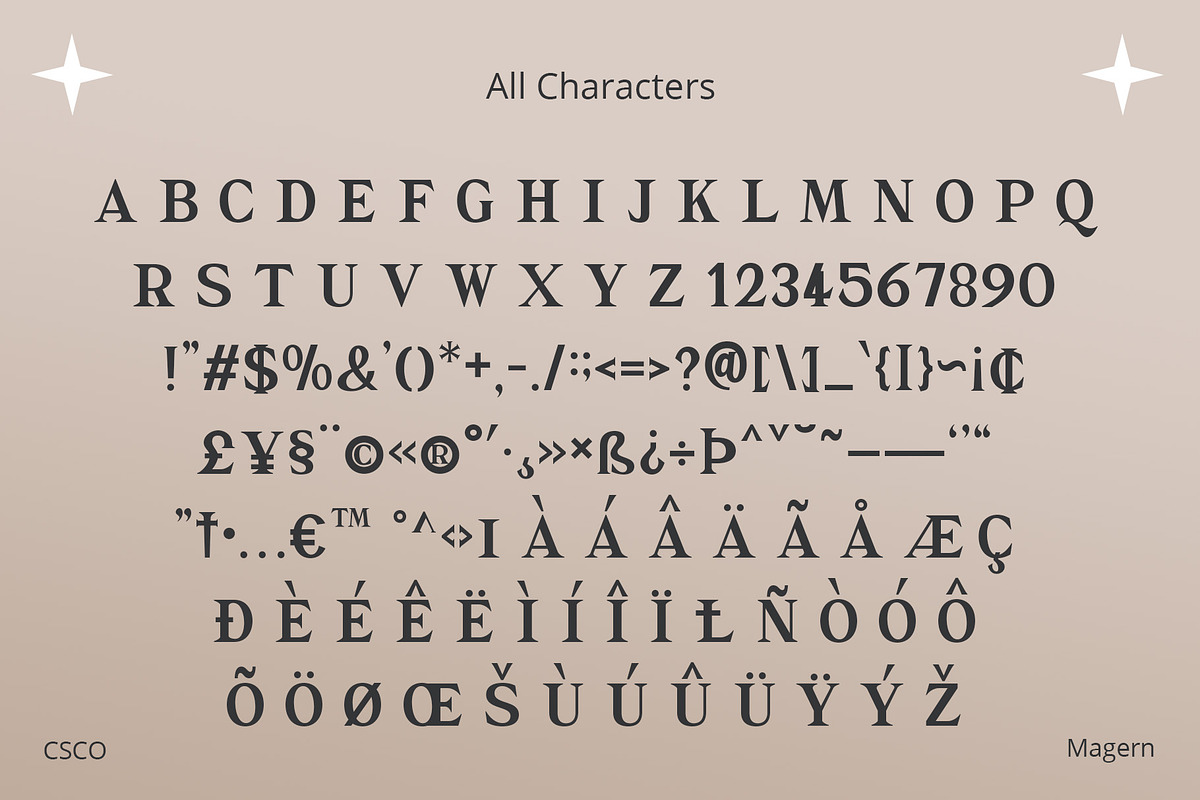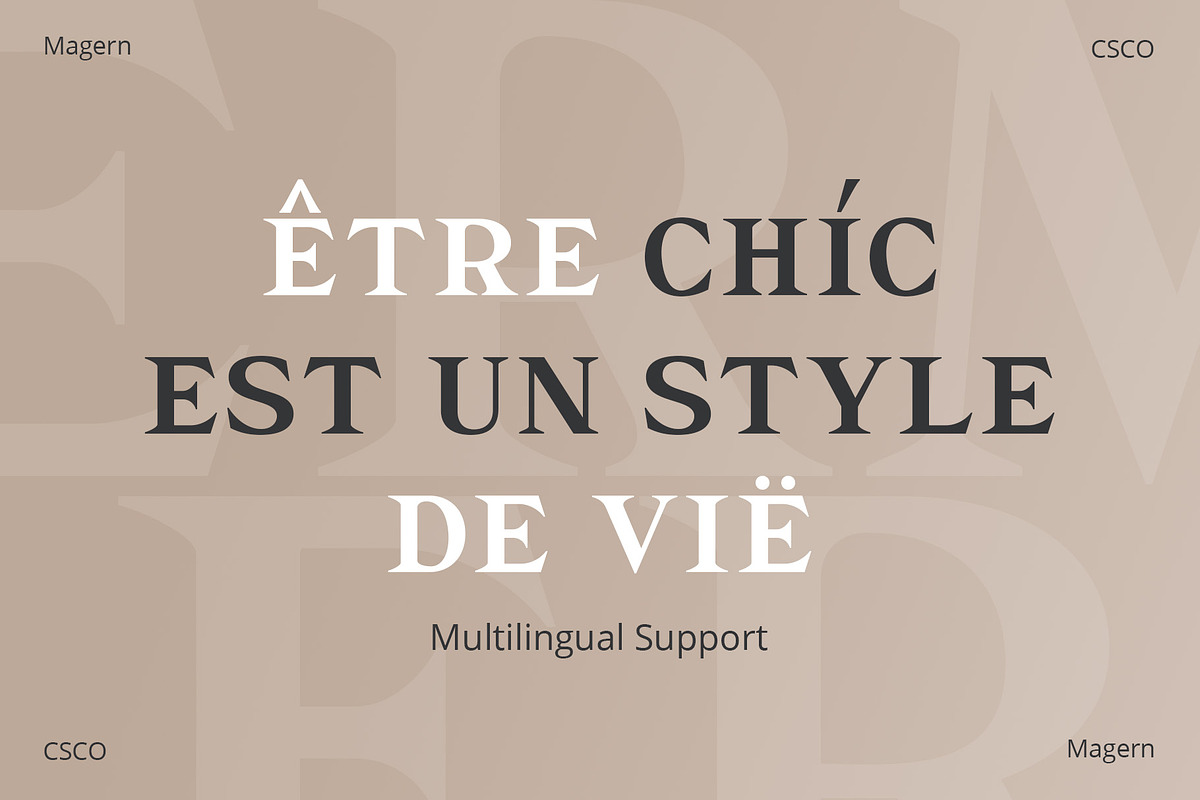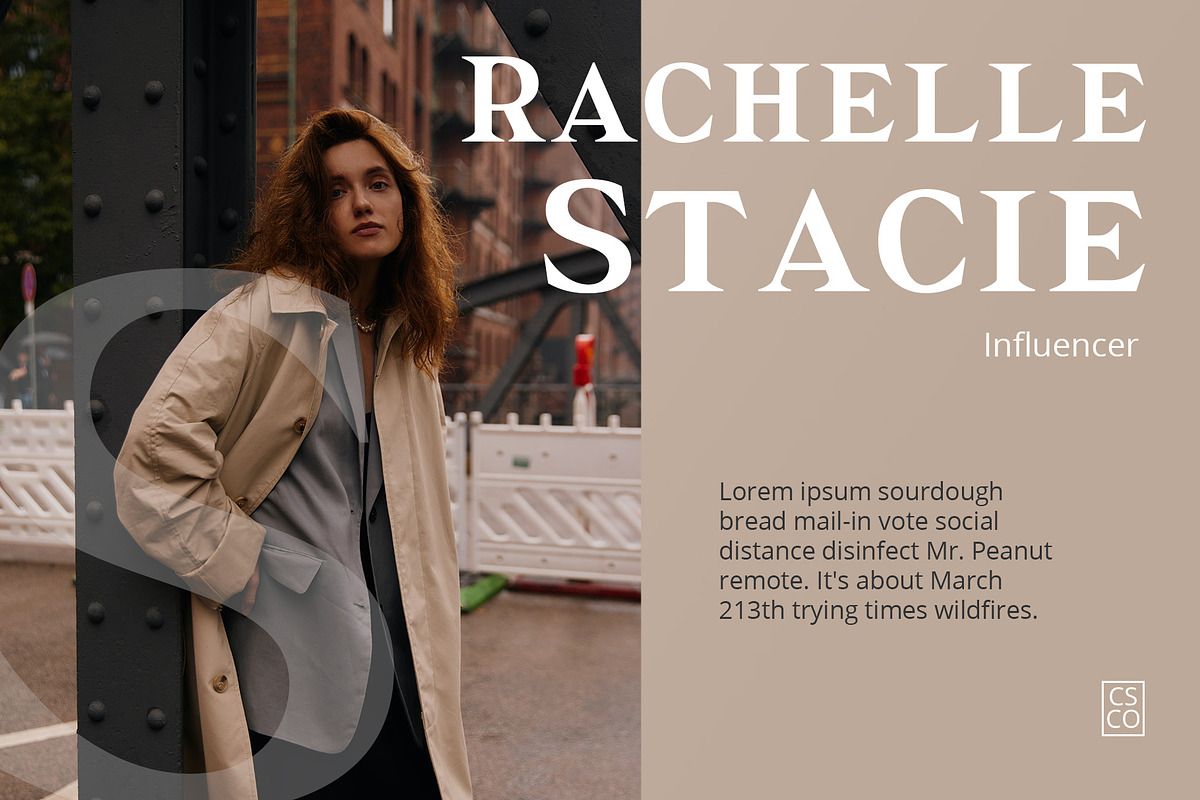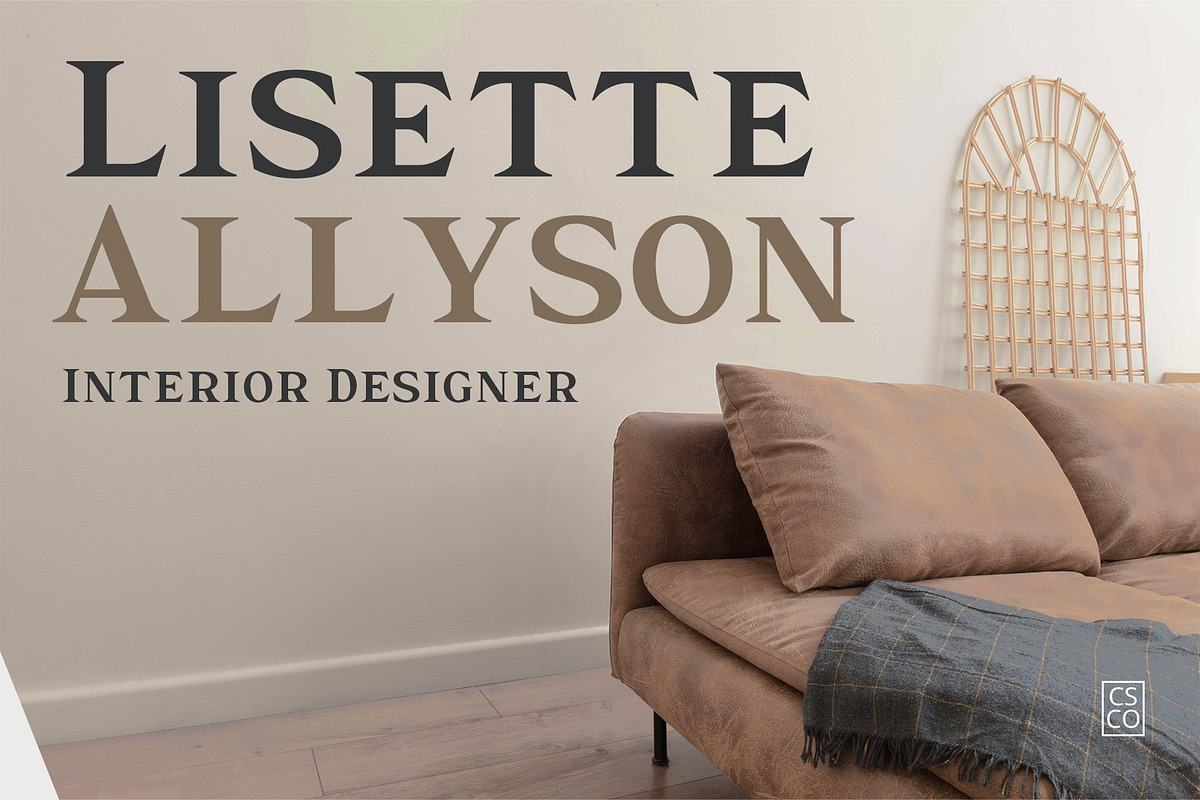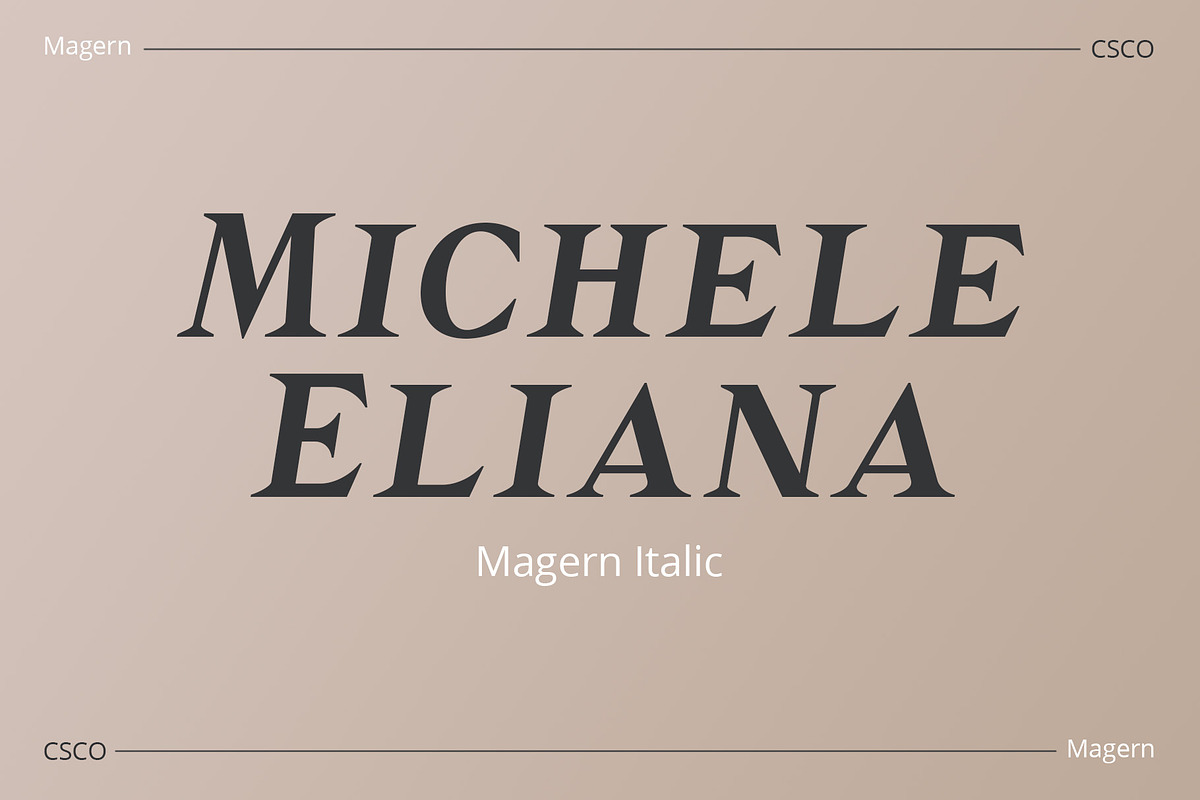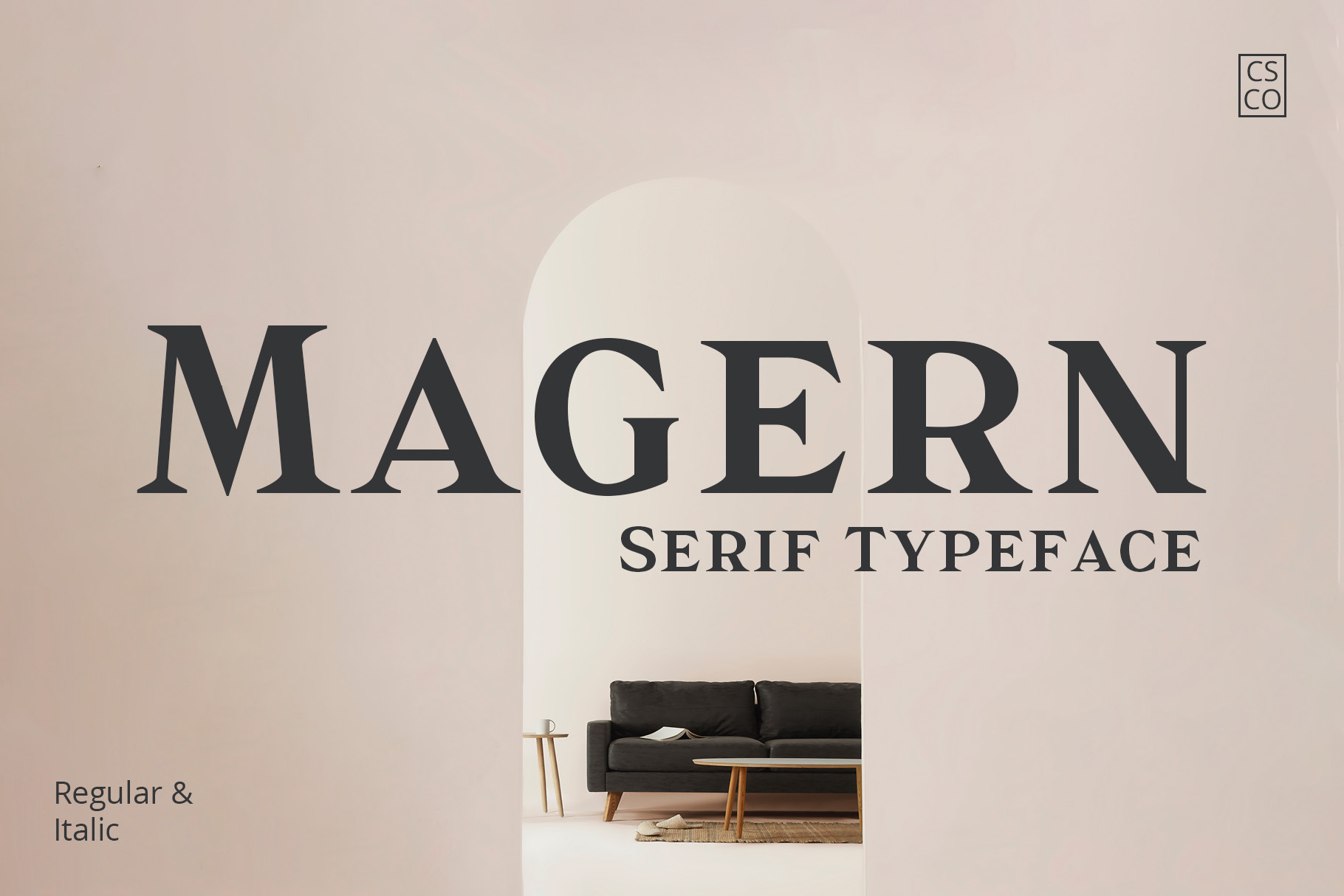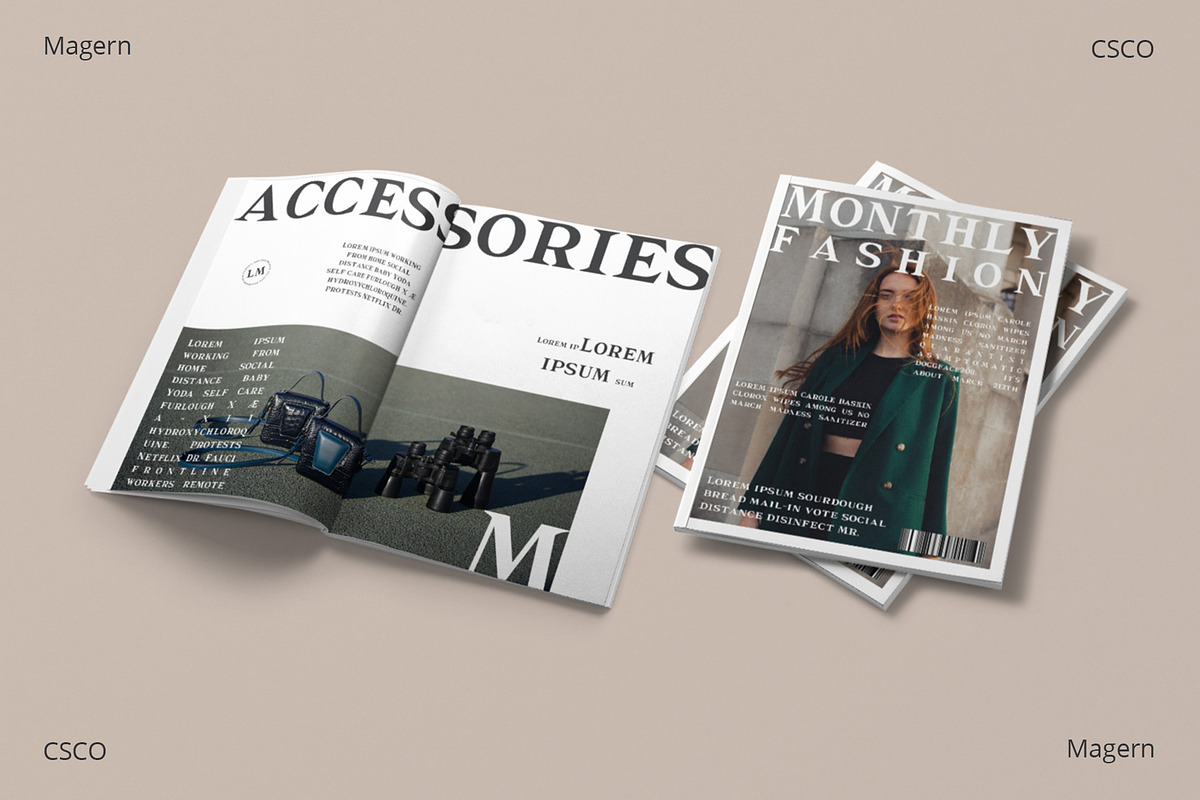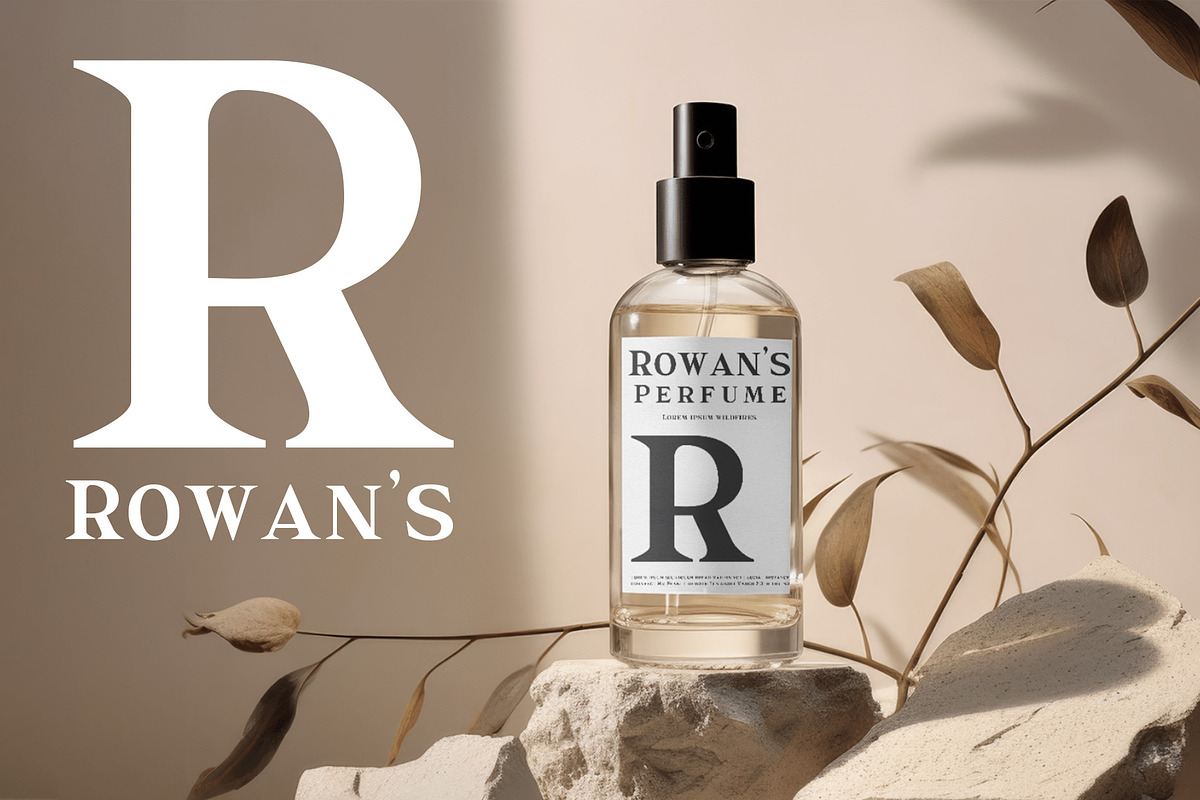
Magern – Serif Typeface
Introducing Magern – Serif Typeface
Versatility and Elegance Firstly, Magern stands out with its versatility. Created meticulously, it beautifully complements various editorial and magazine layouts. Consequently, it brings elegance and readability together.
Craftsmanship in Design Besides, the craftsmanship in Magern is impeccable. Each letterform is thoughtfully designed, ensuring it carries a classic yet contemporary feel. As a result, it captivates readers’ attention effortlessly.
Adaptability Furthermore, Magern proves to be exceptionally adaptable. While it exhibits a strong presence in headings, it also maintains subtlety in body texts. Thus, it enhances overall readability.
Perfect for Storytelling In addition, its design aids in powerful storytelling. The font’s character enables content to flow smoothly, allowing stories to unfold with grace and ease. Therefore, it keeps readers engaged and interested.
Ease of Use Moreover, Magern is user-friendly. It makes the design process simpler and more efficient, even for beginners. Hence, it’s suitable for a wide range of users.
In Conclusion In conclusion, Magern – Serif Typeface is not merely a font; it’s a blend of timeless elegance and functionality, perfect for editorial brilliance.
- Magern Regular
- Magern Italic